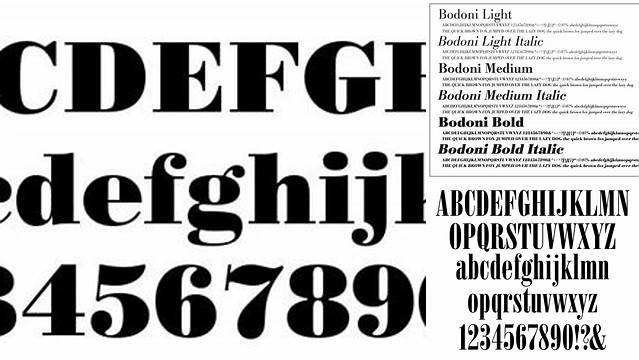
Free Poster Bodoni Bold Font: Download & Design Guide
Hey everyone! Are you on the hunt for a classic, elegant font that screams sophistication? Well, you've come to the right place! Today, we're diving deep into the world of Poster Bodoni Bold, a font that's been a favorite of designers for decades. And the best part? We're going to explore how you can snag a free download of this beauty and start using it in your projects. Whether you're a seasoned designer, a budding creative, or just someone who loves a good-looking font, this article is for you. We'll cover everything from its history and characteristics to where you can find those free downloads, plus some awesome tips on how to use it effectively.
Diving into the History and Characteristics of Poster Bodoni Bold
Let's kick things off with a little history lesson, shall we? Poster Bodoni Bold is a variation of the Bodoni typeface, a classic serif font designed by Giambattista Bodoni in the late 18th century. Bodoni was an Italian typographer, printer, and publisher who is renowned for his elegant and refined typefaces. His fonts are characterized by their high contrast between thick and thin strokes, giving them a distinctive look that's both formal and visually striking. The Bold version, as the name suggests, is a heavier weight, making it perfect for grabbing attention in titles, headlines, and posters.
Poster Bodoni Bold is known for its high contrast between thick and thin strokes, which creates a very elegant and sophisticated look. The serifs, or the small strokes at the end of the letters, are sharp and delicate, adding to the overall sense of refinement. This font is all about making a statement. Its clean lines and strong presence make it ideal for conveying a sense of authority, luxury, or timelessness. When you see this font, you immediately think of fashion magazines, high-end brands, and classic designs. The font's versatility allows it to be used effectively in various contexts, from print to digital media. You can use it for everything from posters and billboards to website headers and social media graphics. The key is to use it in a way that complements the overall design and enhances the message you're trying to convey. When used correctly, it gives a timeless feel to your designs. When you start a project with this font, it will give a great foundation. It creates a good impression for people who are viewing the material. The choice of font says a lot about your design.
The high contrast between the thick and thin strokes is one of the most notable characteristics of Poster Bodoni Bold. This contrast adds a touch of elegance and sophistication to any design. The serifs are another essential feature, they are delicate and sharp, which adds to the font's refinement and makes it look classy. The font's versatility is another plus. It is good for various uses, like posters, headers, or graphics. Remember that using it in a way that supports the design and improves the message is important. By doing this, you can make a timeless feel for your designs. Also, the boldness of the font helps it stand out and grab the viewer's attention. It makes your message clear and strong, making it perfect for headlines or any area where you want to make a strong impact. Its flexibility helps you to combine it with other fonts. You can use it for headings and use a complementary font for the body text. When used well, this font can increase the visual appeal of your design. This is very useful for creating a strong visual message.
This font is a game-changer for anyone looking to elevate their design game. Whether you're working on a branding project, creating a print ad, or designing a website, Poster Bodoni Bold can help you achieve a sophisticated and impactful look. So, get ready to add a touch of elegance and timelessness to your projects with this amazing font!
Tips for Using Poster Bodoni Bold Effectively in Your Designs
Now that you've got your free download and the font installed, let's talk about how to make the most of Poster Bodoni Bold in your designs. This font is a powerful tool, but like any design element, it needs to be used with intention.
First and foremost, remember that less is often more. Poster Bodoni Bold is best used sparingly. Avoid using it for large blocks of text, as it can be difficult to read for extended periods. Instead, use it strategically for headlines, titles, and short pieces of text where you want to make a strong visual impact. It's perfect for headings, subheadings, and any text you want to stand out.
Consider pairing it with a complementary font. Because Poster Bodoni Bold is a very striking font, it's often best paired with a more subdued font for body text. A classic pairing is a simple sans-serif font for the body and Poster Bodoni Bold for headlines. This contrast creates visual interest and helps to guide the reader's eye. The use of pairing the fonts enhances readability and overall design appeal. By doing this, you create a balance between bold and clear. You can also create a hierarchy by varying the sizes of the text. It is essential to find fonts that complement each other and do not conflict. Experiment with other fonts to see what works best for your design.
Conclusion: Elevate Your Designs with Poster Bodoni Bold
So, there you have it, guys! Everything you need to know about Poster Bodoni Bold and how to get a free download. This font is a true classic that can elevate your designs to the next level. Remember to use it thoughtfully, pair it with the right fonts, and always double-check those licenses. With a little practice, you'll be creating stunning visuals that capture attention and leave a lasting impression. Have fun designing, and let your creativity shine!